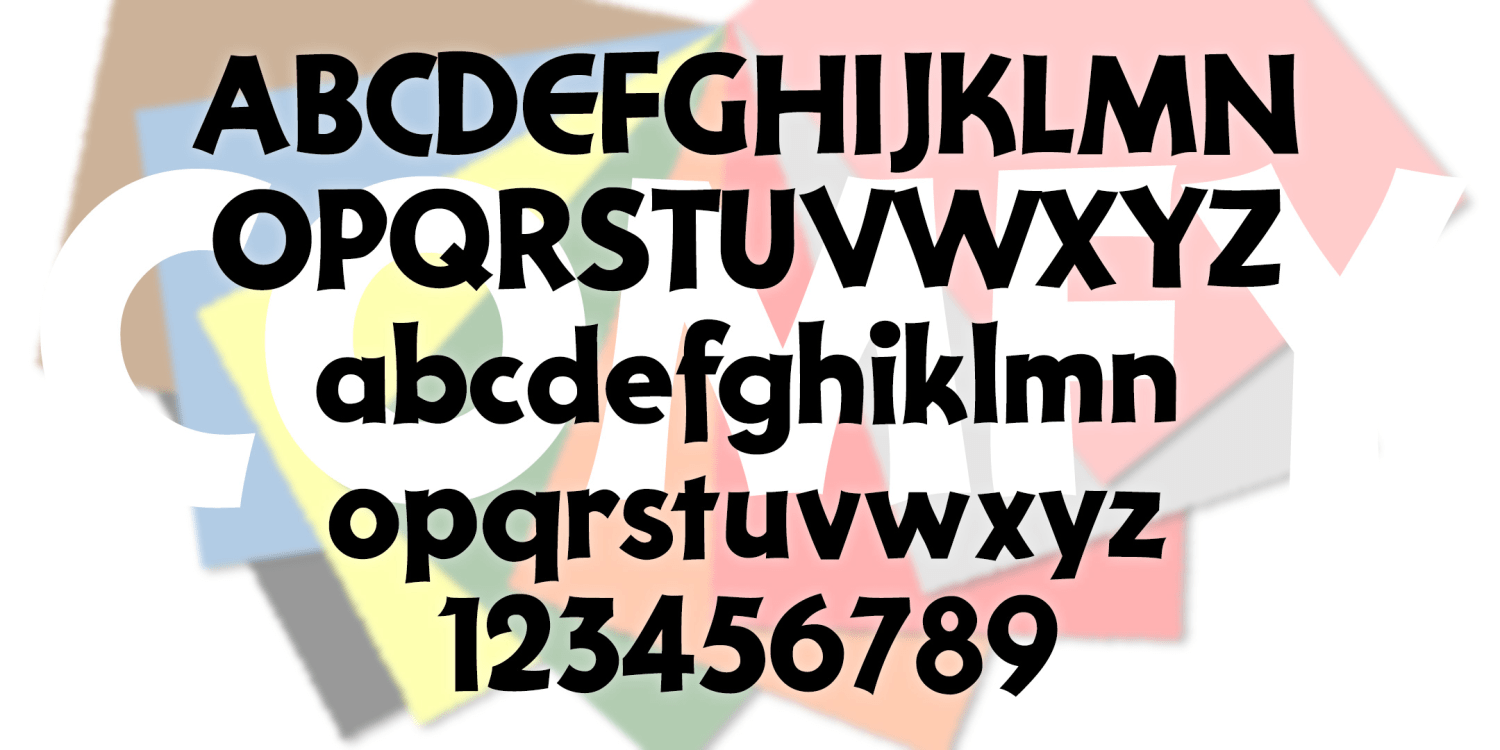
Comfy
COMFY has the bold but friendly look of cutout letters. Inspired by an example of “Pinselschrift” (brush lettering) by Wilhelm Dechert. Has the feel of a handlettered version of a 20th-century geometric font like Paul Renner’s Futura or Rudolf Koch’s Kabel.